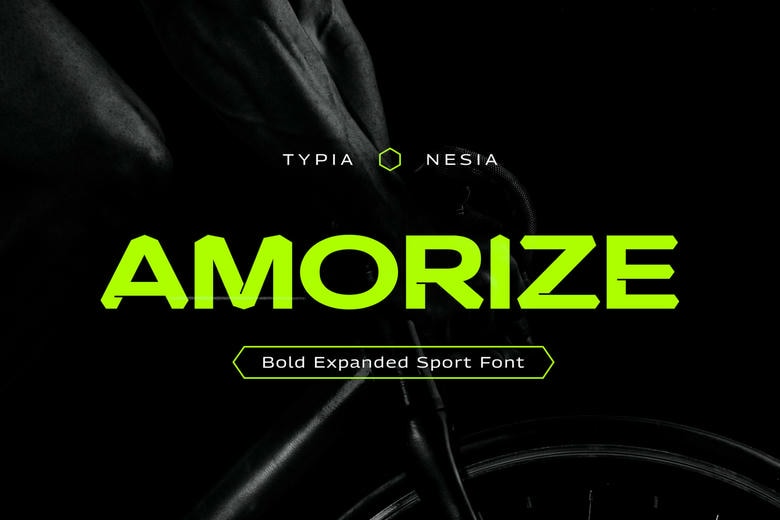
Amorize Font
Amorize is a contemporary and bold display typeface. It is modern and clean and it is best suited to any design that you want to make. Use it in your project works and turn them excellent!
Amorize Display Font